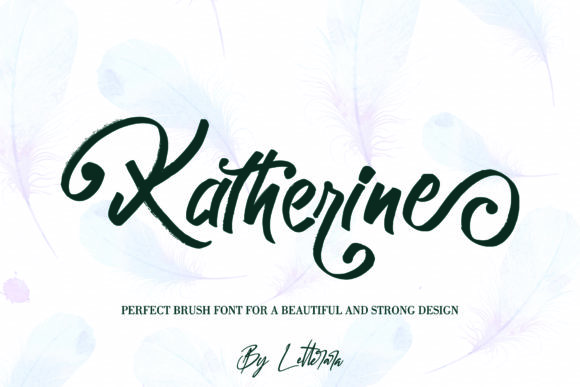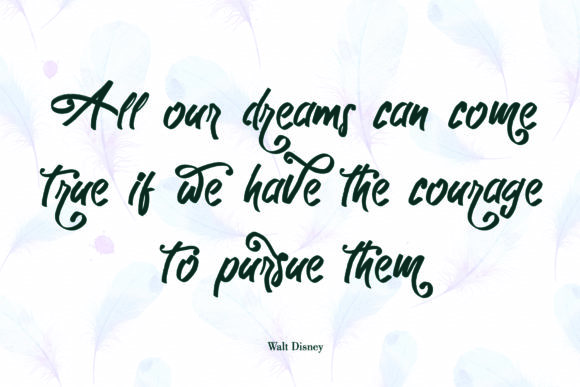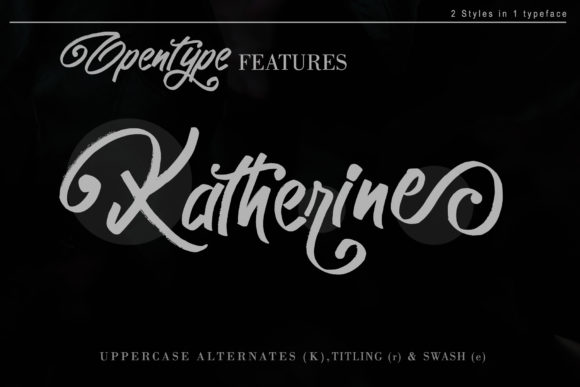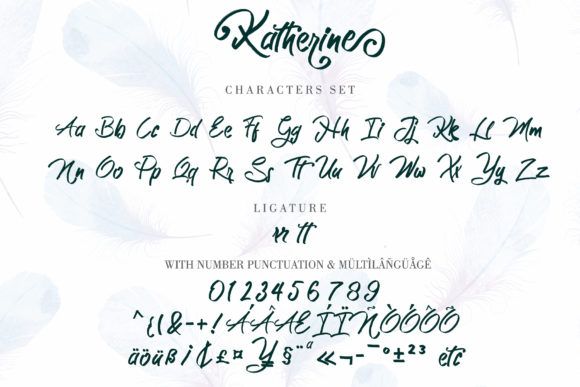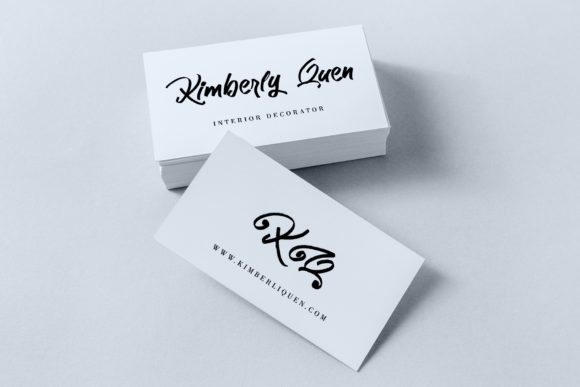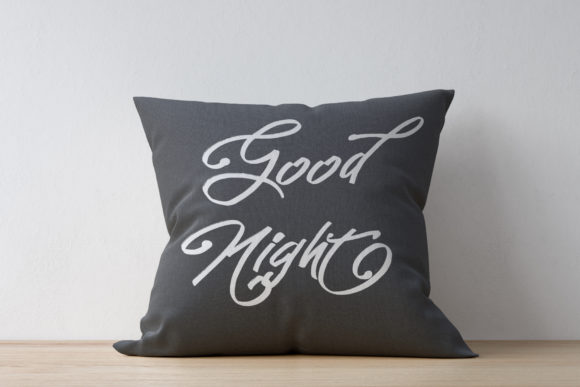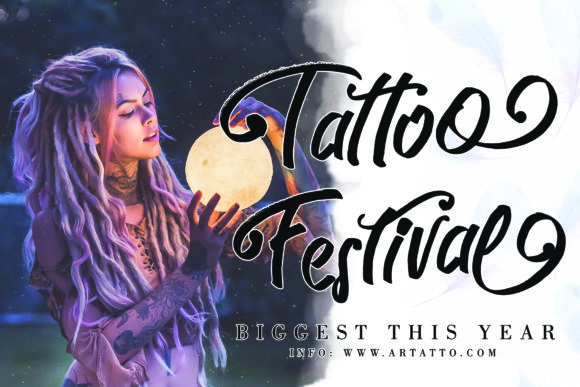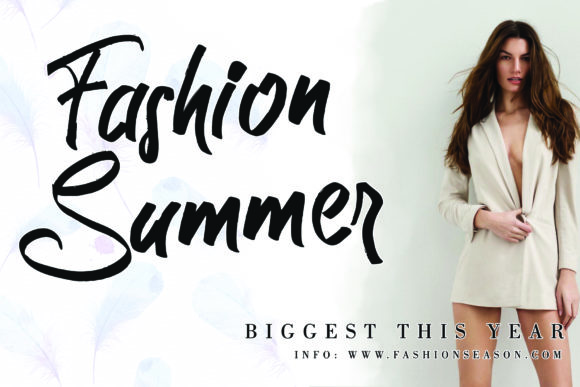
Katherine Font
About Katherine Font
Katherine is a textured brush font with a natural handmade look and an irregular baseline. Fall in love with its charming appearance!